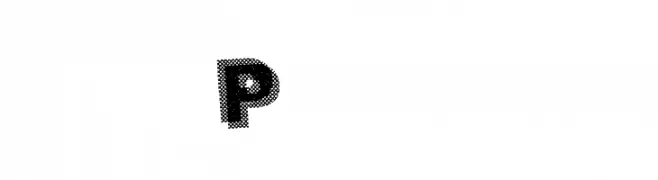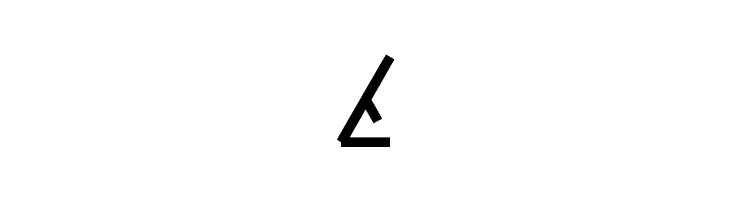
A bold, playful font with a retro comic book style and halftone texture.
A geometric, angular font with a futuristic and bold design.
A futuristic, angular font with sharp lines and a geometric style.
A futuristic, circuit-inspired font with intricate linework and electronic motifs.
A playful, whimsical font with bold, irregular shapes and a hand-drawn feel.
A bold, modern sans-serif font with strong, clean lines.
A bold, italicized sans-serif font with a modern and dynamic style.
A bold, italicized font with a dynamic and commanding style.